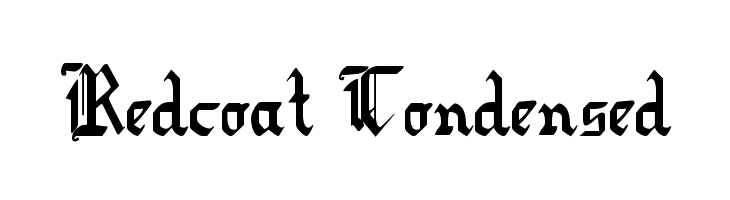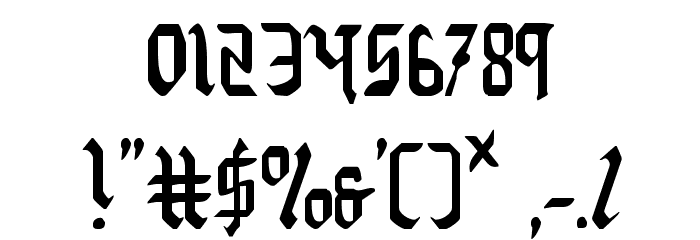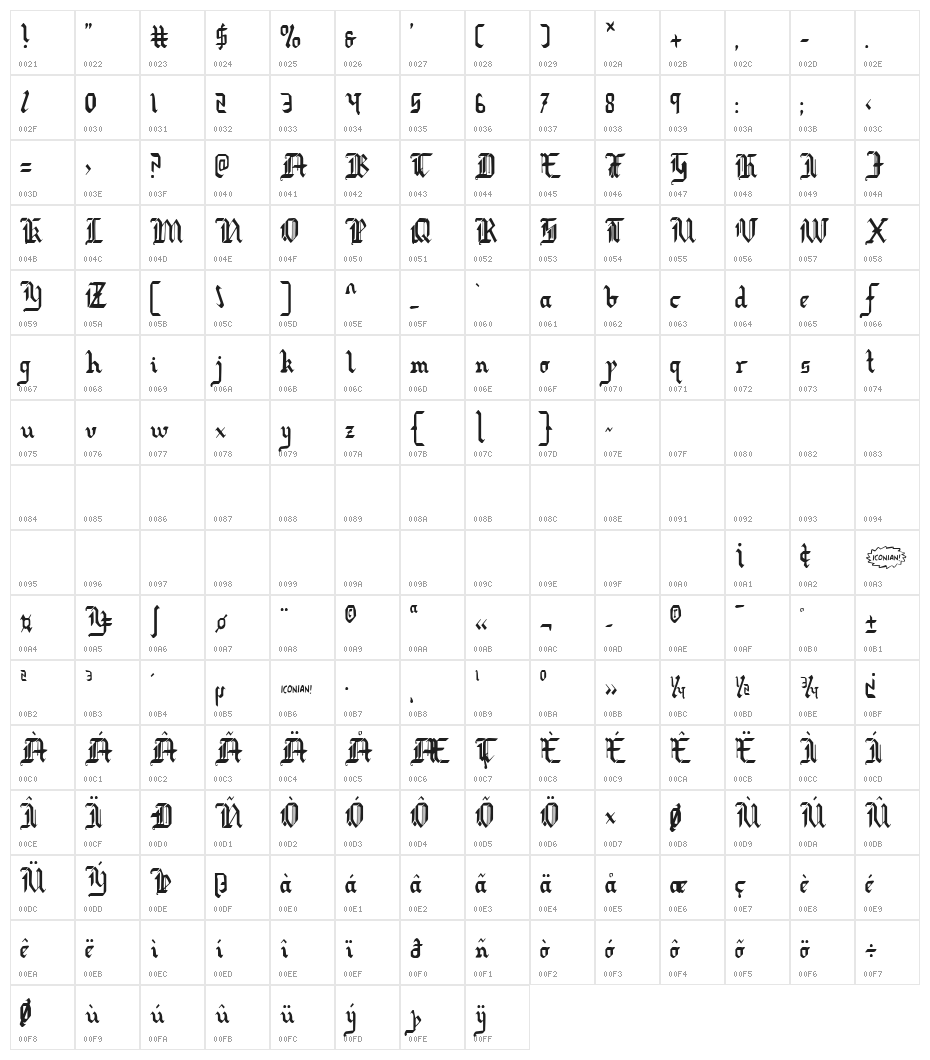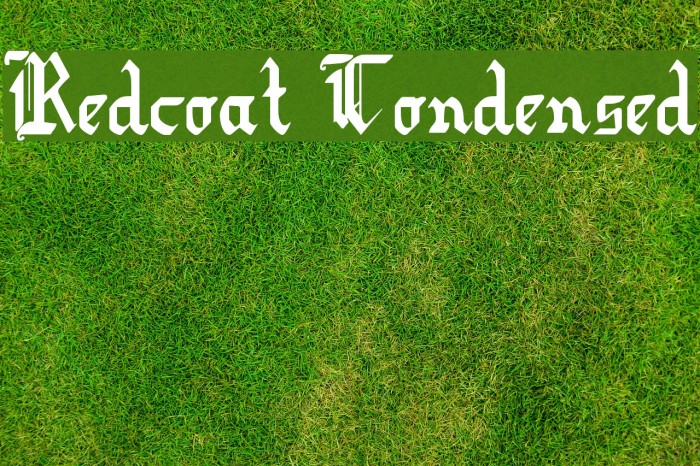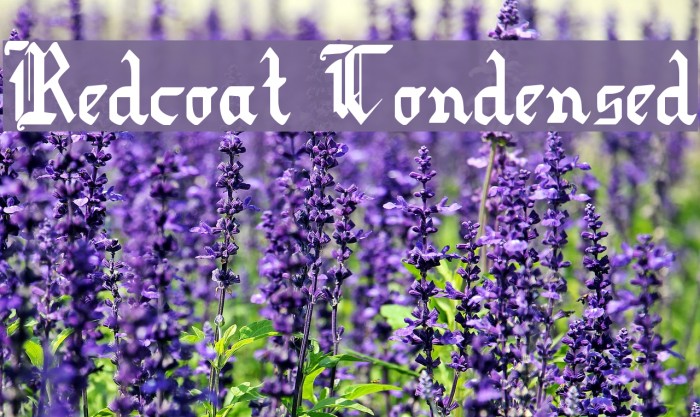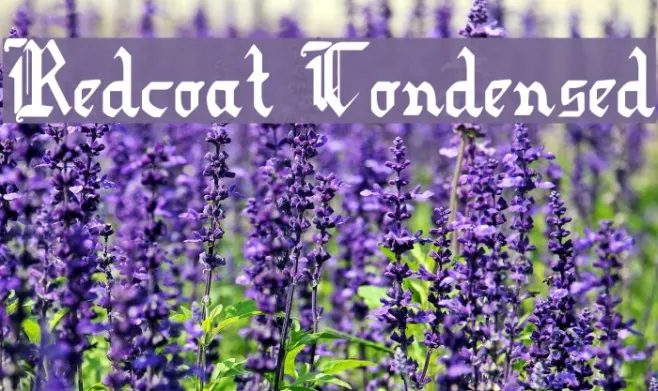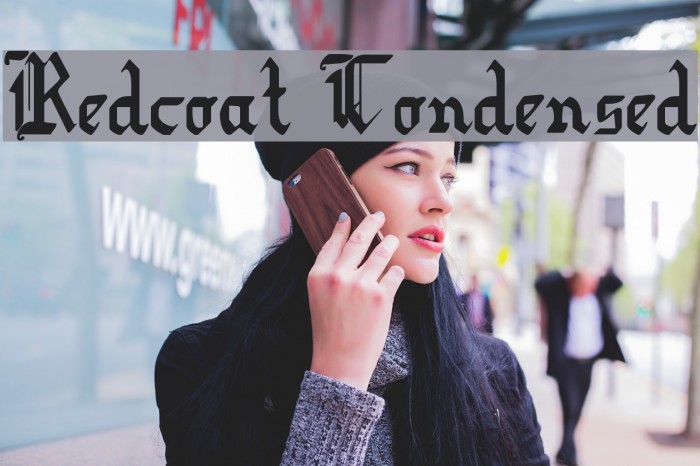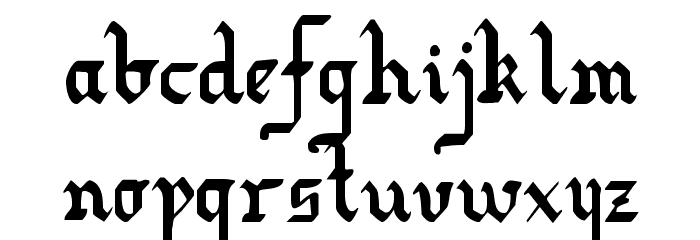
Redcoat Condensed Font
Redcoat Condensed Description
This font features a bold, condensed style with a distinct Blackletter influence. The characters are intricately designed with sharp angles and a gothic flair, reminiscent of medieval script. The uppercase letters are particularly ornate, with elaborate serifs and a strong vertical emphasis. The lowercase letters maintain the same stylistic elements but are slightly more subdued, allowing for readability while retaining the decorative quality. Numbers and special characters follow the same design principles, ensuring a cohesive look across all glyphs. The overall appearance is both dramatic and historical, making it suitable for projects that require a touch of elegance and tradition.
| Overall Style | Vintage |
| Proposed Projects | Ideal for historical-themed designs, book covers, posters, and branding that requires a classic and dramatic touch. |